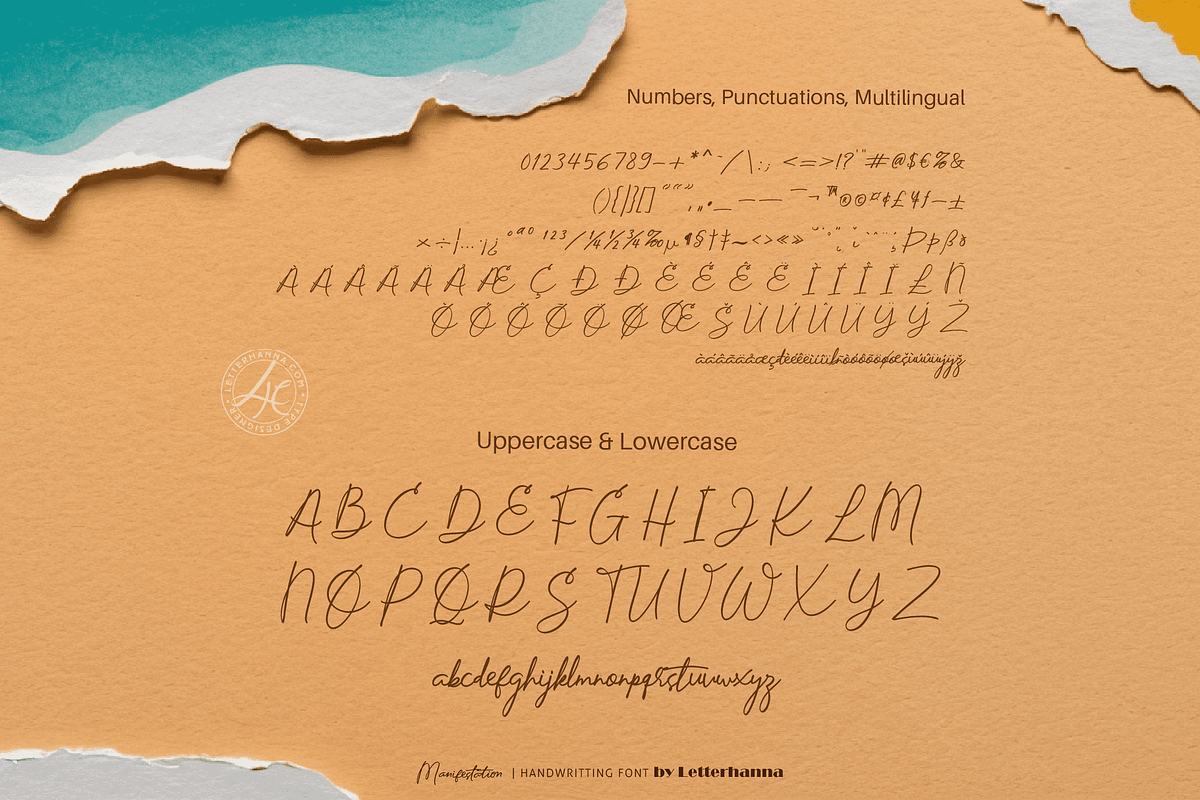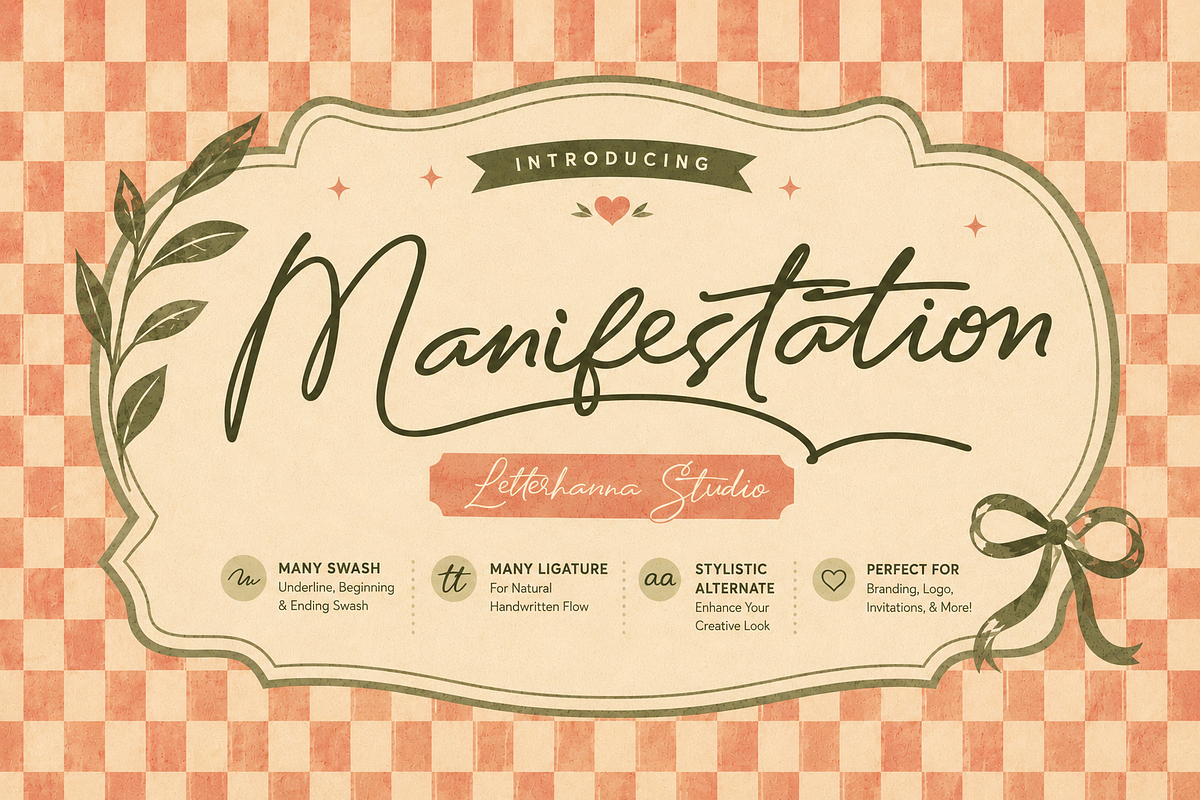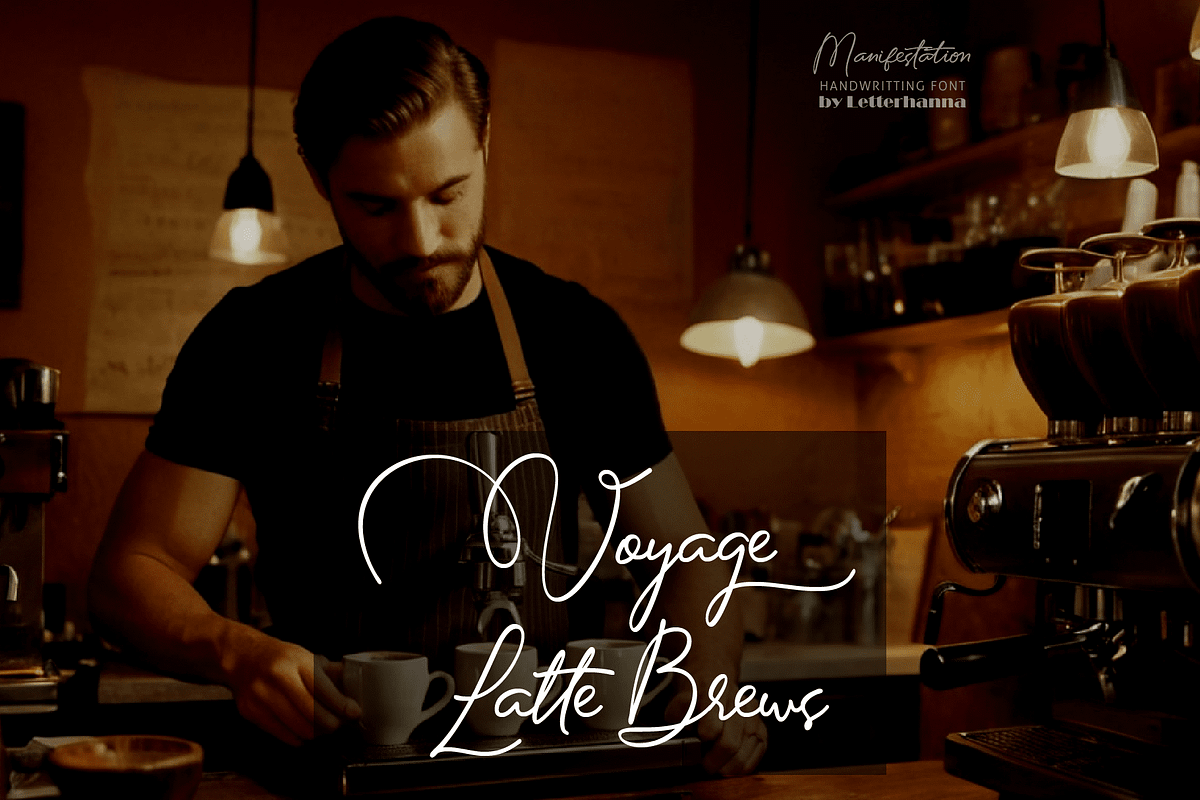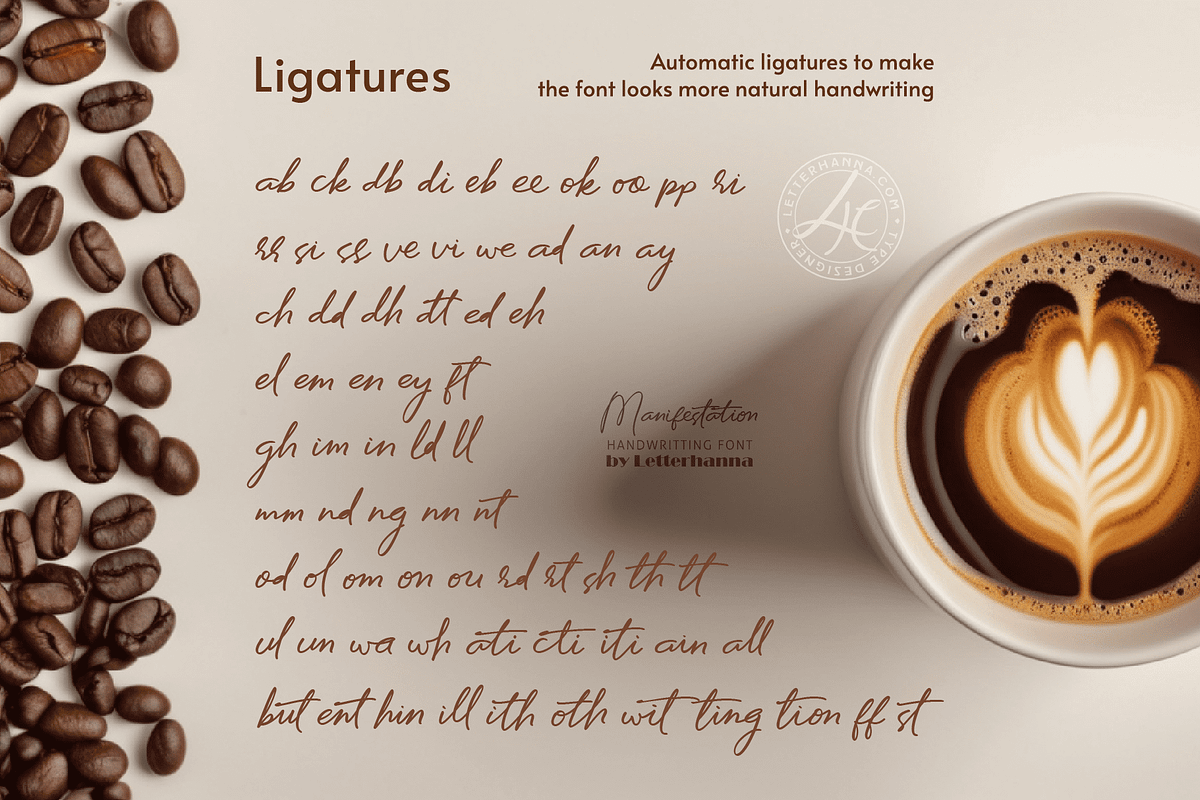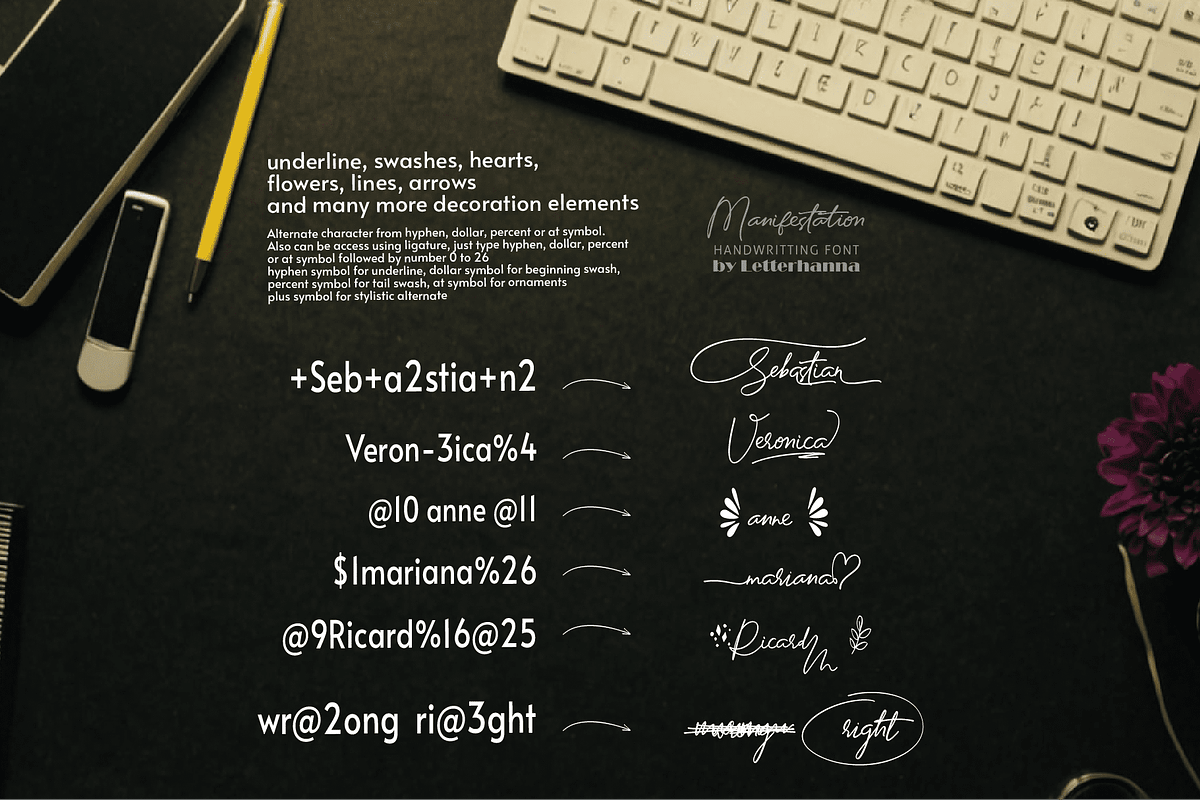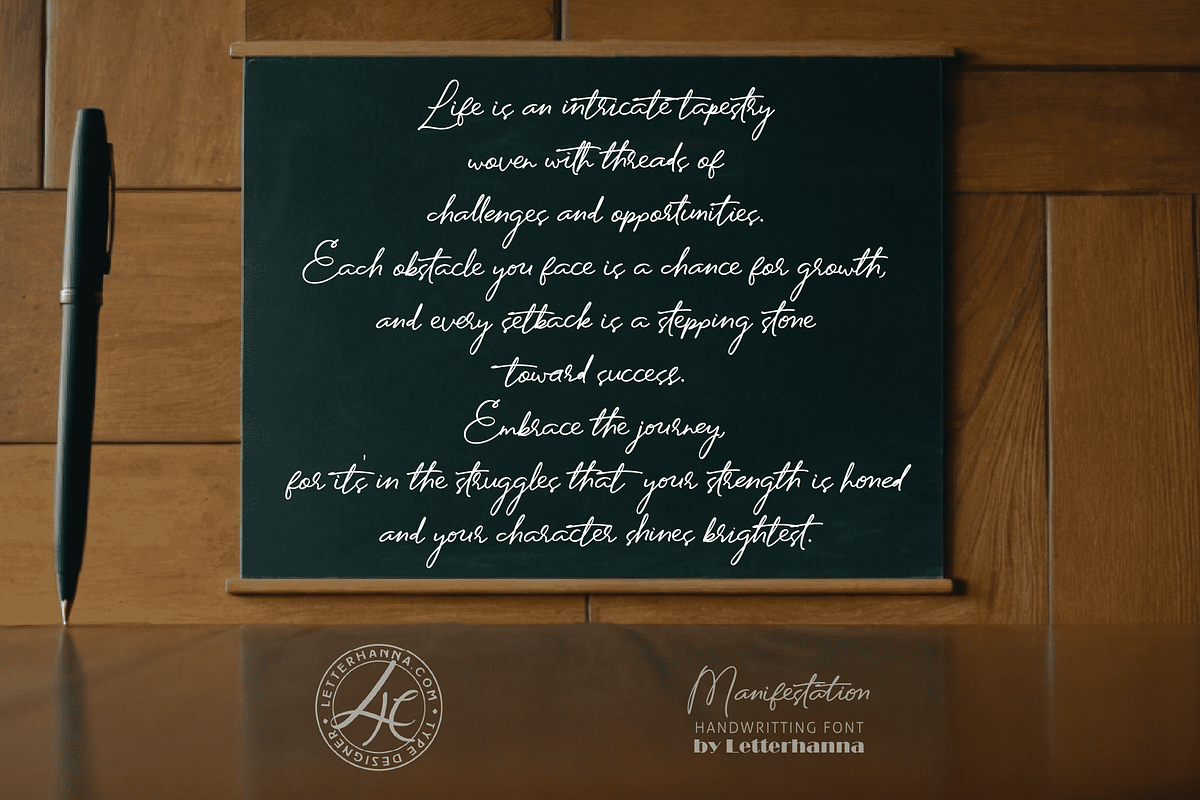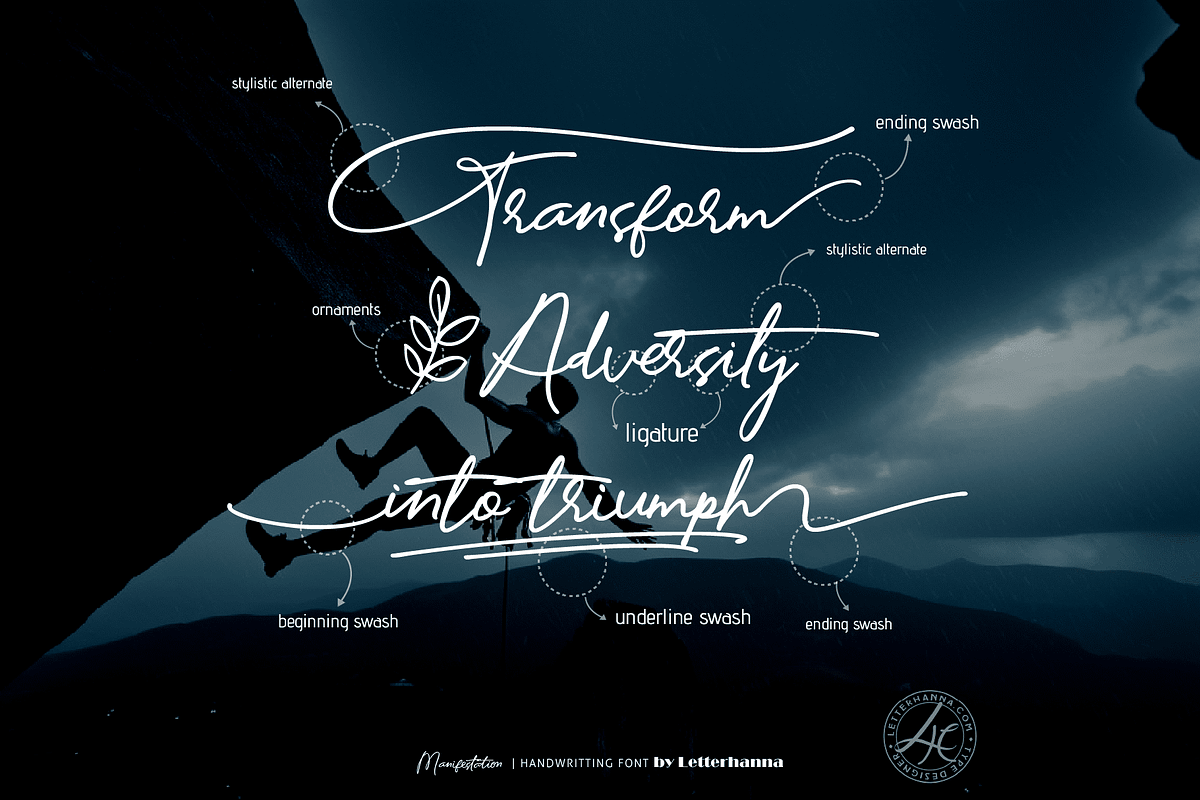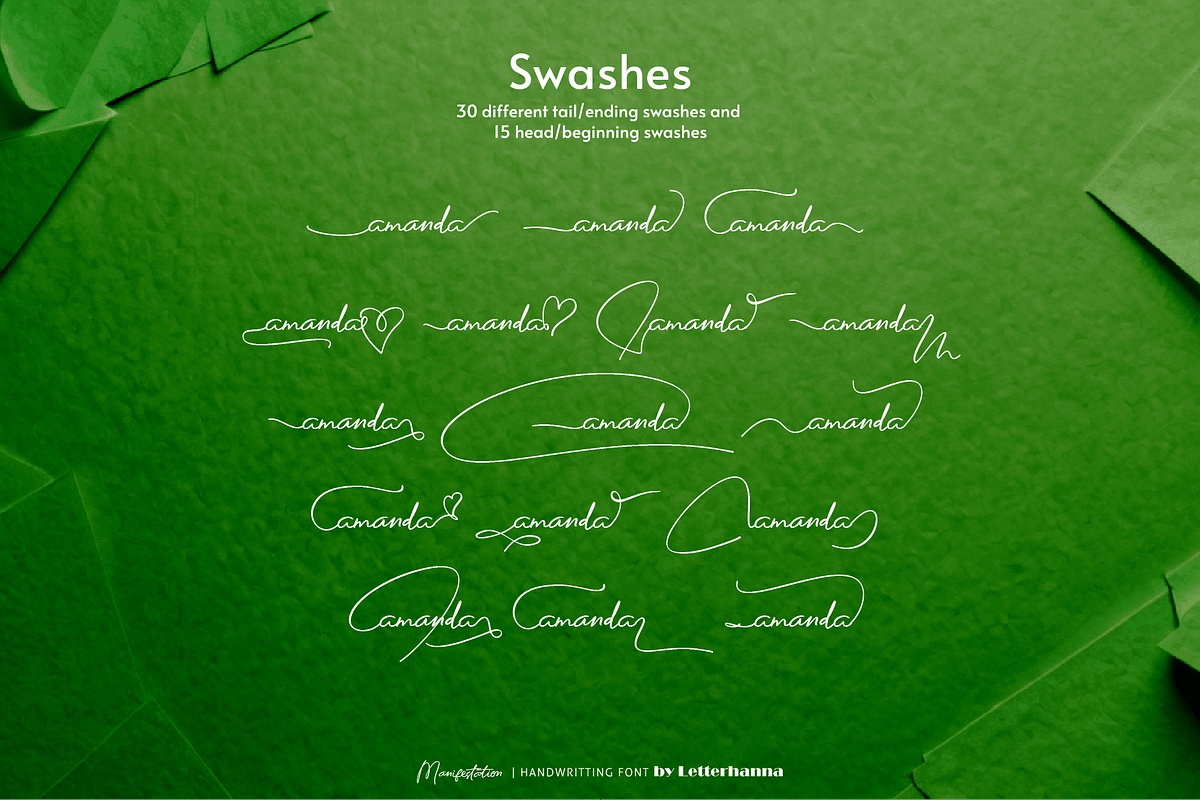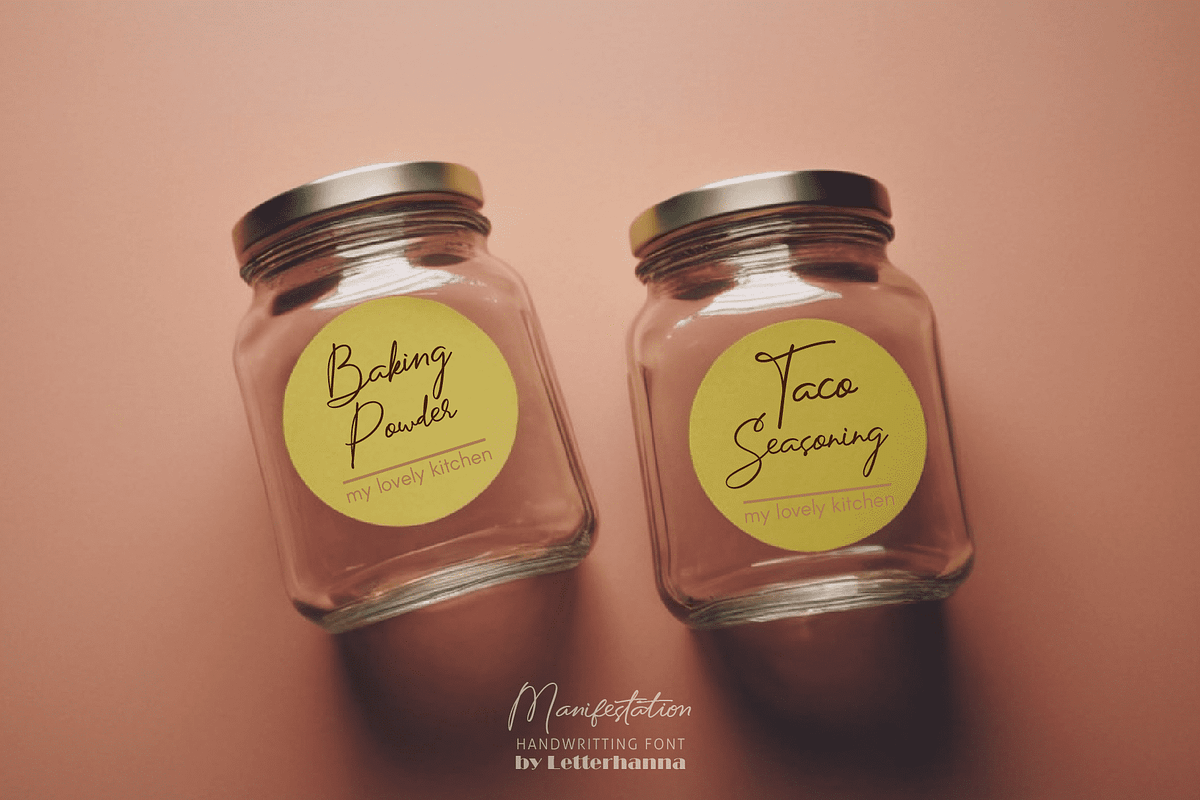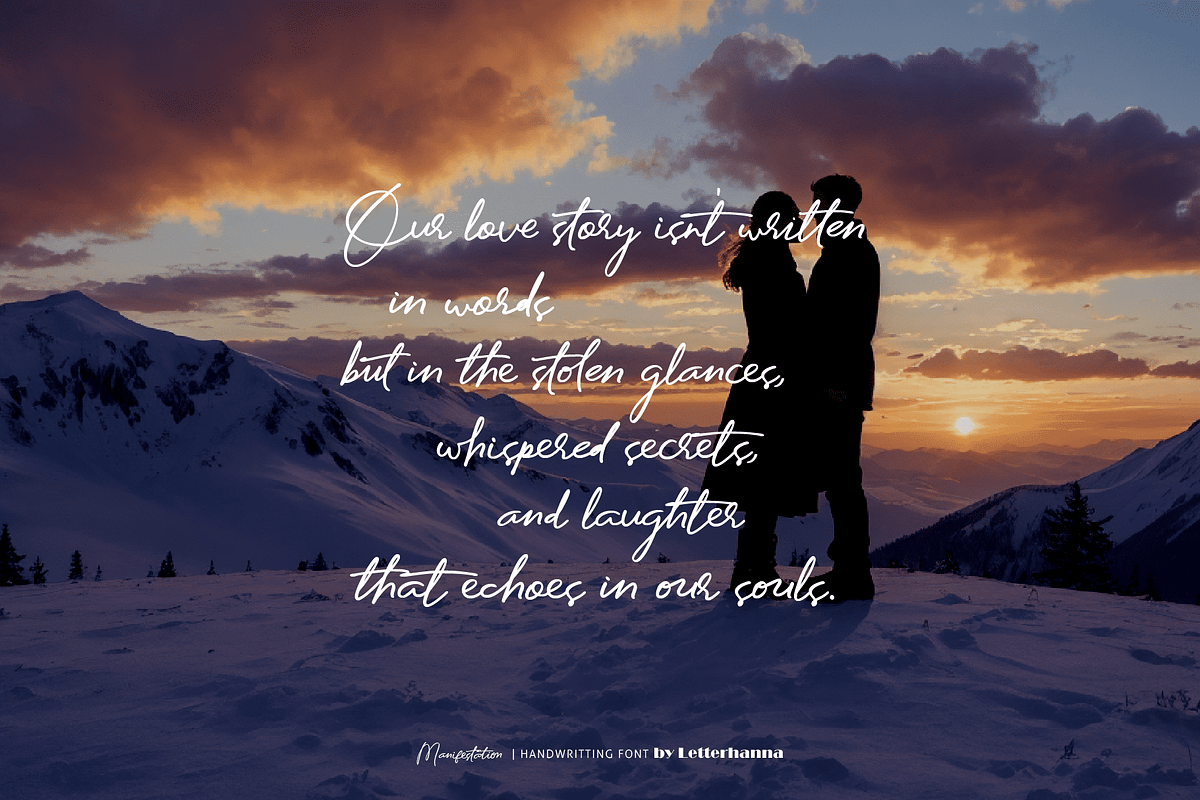
Manifestation
Unleash your inner author with Manifestation Font!
Manifestation Font is a captivating handwritten script font that brings your words to life with an authentic and expressive touch. Its elegant curves and natural flow will lend a personal charm to any project, from handwritten notes and invitations to creative branding and social media content.
Manifestation Font is perfect for:
Adding a touch of personality to handwritten letters and cards.
Creating eye-catching logos and branding materials.
Crafting unique social media posts and design elements.
Expressing yourself creatively in journals and artwork.
Let your creativity flow and manifest your vision with this stunning new font!
Easy Access to Glyphs and Swashes Gain easy access to all alternate glyphs, swashes, ornaments, and underlines by simply using ligatures. You can try them out yourself in the font preview tool on our website, letterhanna.com.
Accessing Stylistic Alternates Stylistic alternates can be accessed by typing a plus symbol "+" in front of the original letter. For example, type "+A" to get the stylistic alternate of the capital letter A.
Accessing Swashes and Ornaments Underline Swashes: Use a hyphen symbol "-" followed by a number between 1 and 30. For example, type "-3", "-22", or "-17" to get various underline swashes.
Head/Beginning Swashes: Use a dollar sign "$" followed by a number between 1 and 9. For example, type "$2" or "$8" to get different head/beginning swashes.
Tail/Ending Swashes: Use a percent sign "%" followed by a number between 1 and 30. For example, type "%3" or "%15" to get various tail/ending swashes.
Ornaments: Use an "at" symbol "@" followed by a number between 1 and 26. For example, type "@4" or "@13" to get different ornaments.
PUA Encoding for Ease of Use. The Manifestation Font is also PUA encoded, which means you can access all the glyphs and swashes with ease!
Uppercase and lowercase letters
Numbers and punctuation marks
Beginning and ending swashes
Underline swashes
Stylistic alternates
Ornaments
Easy access to swashes using ligatures